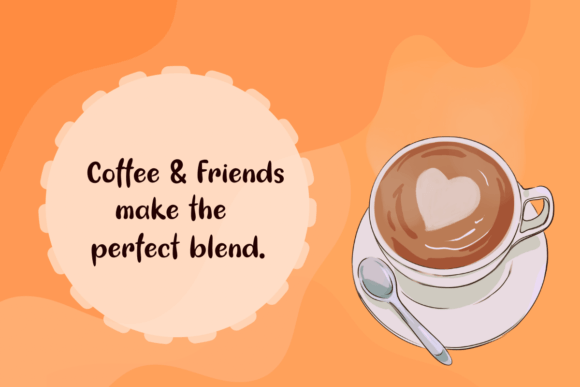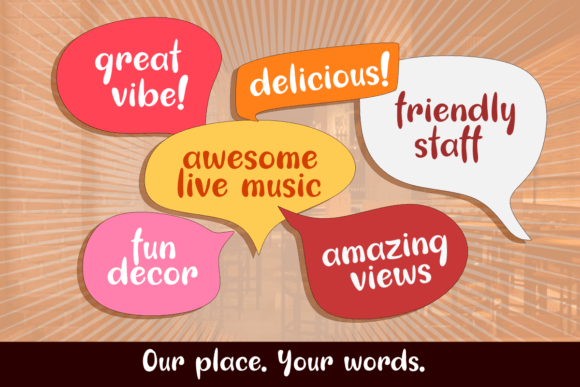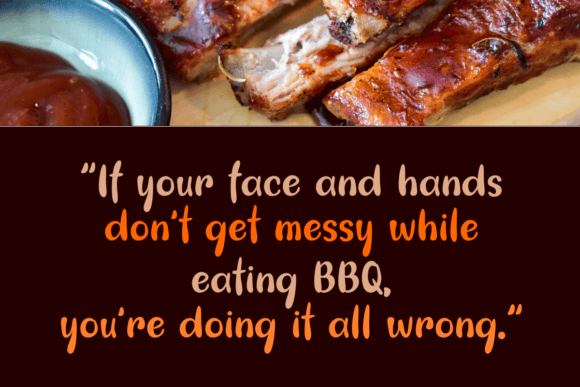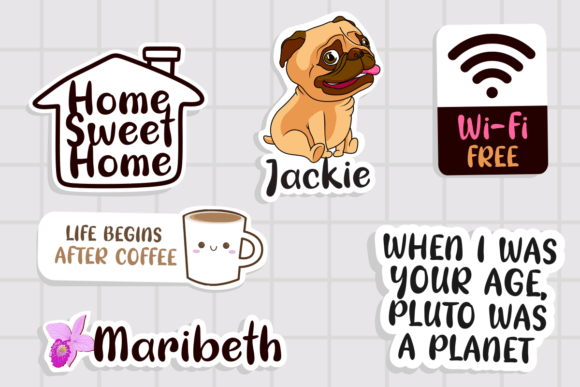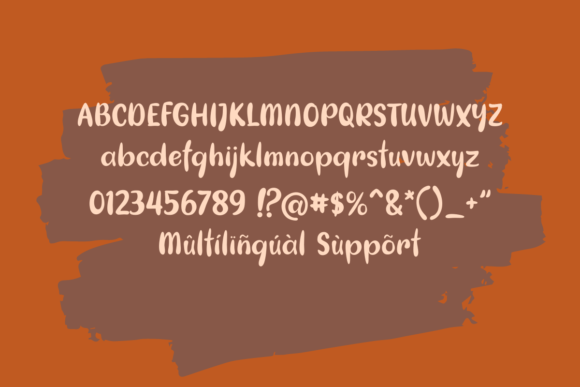
The Perfect Marinade for Your Designs
There’s nothing quite like the feeling of finally finding the perfect font to bring your design to life. You’ve spent hours scouring through fonts, trying out different styles and combinations, and suddenly, it hits you – the perfect marinade for your design.
| 👤 Author | Deedeetype |
Meet Barbeque Sauce Font, a simple yet stylish display font that’s sure to add a touch of creativity to your designs. With its playful and whimsical characters, this font is perfect for expressing your unique and imaginative ideas. Whether you’re designing a food blog, a children’s book, or a fun advertisement, Barbeque Sauce Font is a must-have in your font library.
So why is Barbeque Sauce Font so valuable for designers? Its simplicity and versatility make it a go-to choice for any design project. With Barbeque Sauce Font, you can create eye-catching headlines, add a pop of color to your designs, and bring your ideas to life in a fun and playful way.
Barbeque Sauce Font Key Features
- Font Family: Barbeque Sauce Font is a custom-designed font family, offering a unique and playful aesthetic.
- Size: The font family includes multiple font weights, ranging from 100 to 900, allowing for flexibility in design applications.
- Resolution: Optimized for high-resolution displays, suitable for use in digital designs, print materials, and merchandise.
- Unique Characteristics: The font’s distinctive, hand-painted style and vibrant color palette evoke a fun, summery vibe, perfect for food, lifestyle, and entertainment brands.
- Character Count: Each font weight includes a comprehensive set of characters, including uppercase and lowercase letters, numbers, punctuation, and special characters.
Barbeque Sauce Font Review
Overall, I think Barbeque Sauce Font is a decent choice for certain projects, but it’s not without its limitations. ✨ One thing that works well is its bold, playful feel, which is perfect for branding or advertising materials that need to stand out. The font is highly customizable, allowing users to adjust the color, size, and even the texture of the sauce splatters. ✨
- Perfect for branding or advertising materials
- Fun, playful feel
However, ⚠️ the font can be overwhelming if used extensively throughout a design. The bold, handwritten style starts to feel gimmicky after a while, and it’s not suitable for more serious or professional projects. Additionally, the texture of the sauce splatters can be distracting if not used carefully.
Overall, I would recommend Barbeque Sauce Font for projects where a playful, attention-grabbing feel is necessary. However, it’s essential to use it in moderation and balance it with other fonts to avoid overwhelming the viewer.
To get the most out of Barbeque Sauce Font, try combining it with other bold fonts to create a striking visual effect. You can also use it to add a playful touch to your designs. Experiment with different font sizes and colors to achieve the desired look.
Barbeque Sauce Font is ideal for use in food-related designs, such as restaurant menus, food packaging, and cookbooks. It can also be used in designs that require a playful or whimsical touch, such as children’s party invitations or marketing materials.